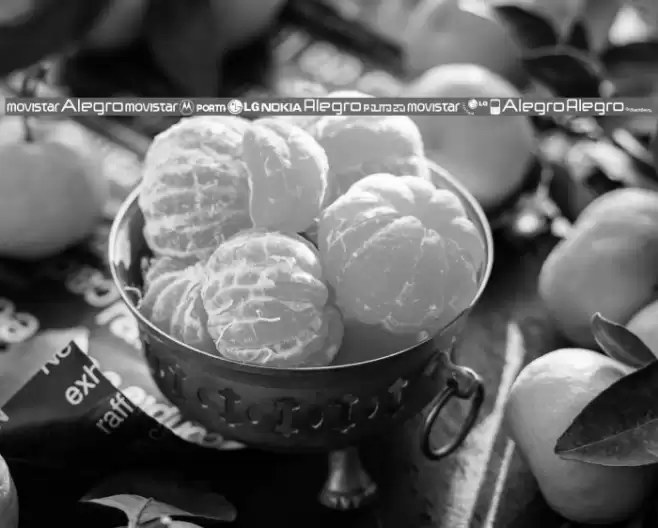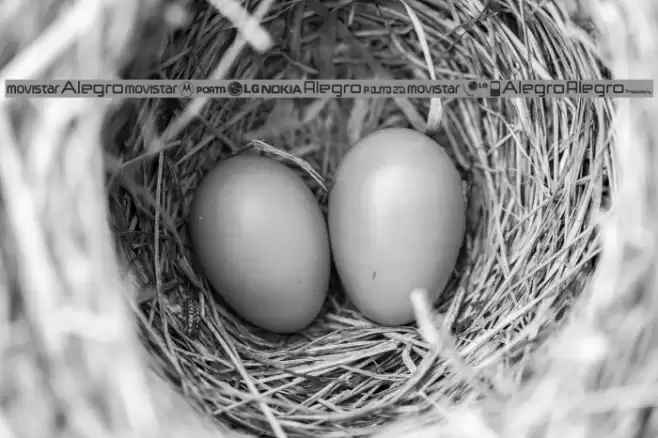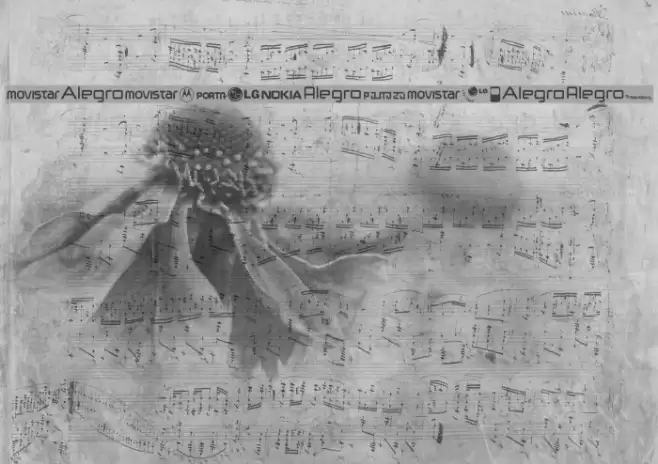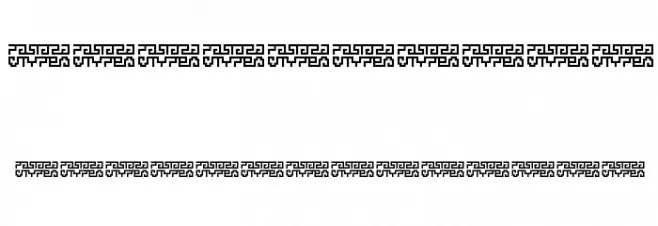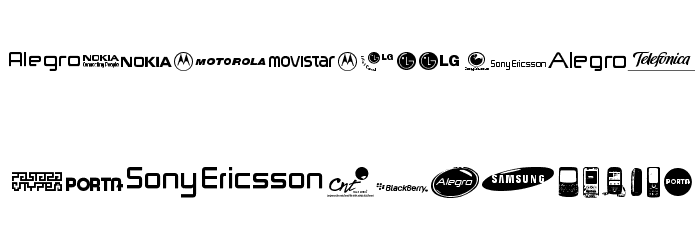
Telefonica Regular Font
Telefonica Regular Description
This font features a sleek and modern design, characterized by clean lines and a professional appearance. It is well-suited for corporate branding and technology-related projects, offering a contemporary aesthetic that is both versatile and visually appealing. The characters are evenly spaced, providing excellent readability and a balanced look. The font's style is consistent throughout, making it ideal for use in various digital and print media. Its design elements suggest a sense of innovation and forward-thinking, making it a great choice for companies looking to convey a modern and dynamic image.
A sleek, modern font ideal for corporate branding and tech projects from Uncategorized fonts.
- Proposed Projects: Corporate branding, technology websites, digital media, print advertising, product packaging.
- Use Case: Logos, Headlines, Digital Media